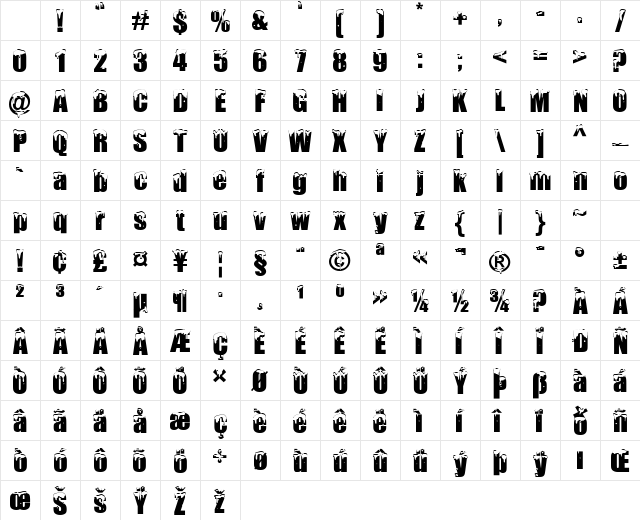
Complete Polar Snow Regular glyph index. Displaying only characters natively supported by Polar Snow Regular font.
Polar Snow is a composed and adaptable typeface that performs quietly and consistently across a wide range of design contexts.